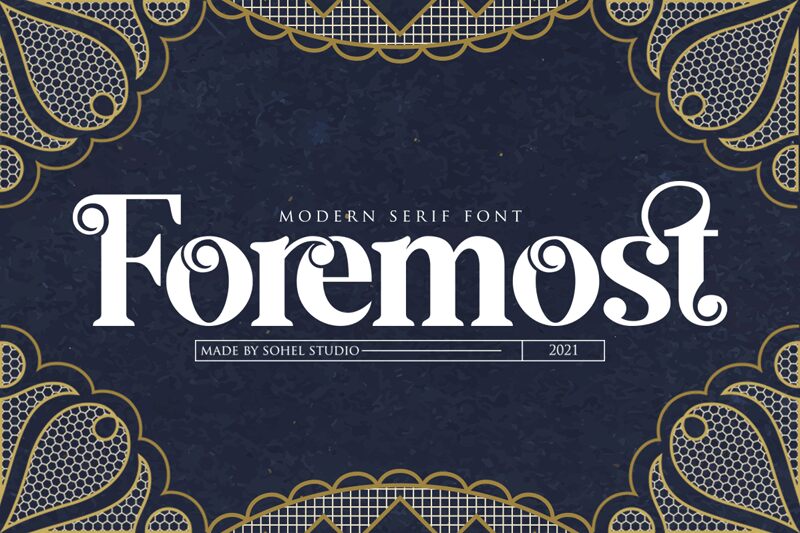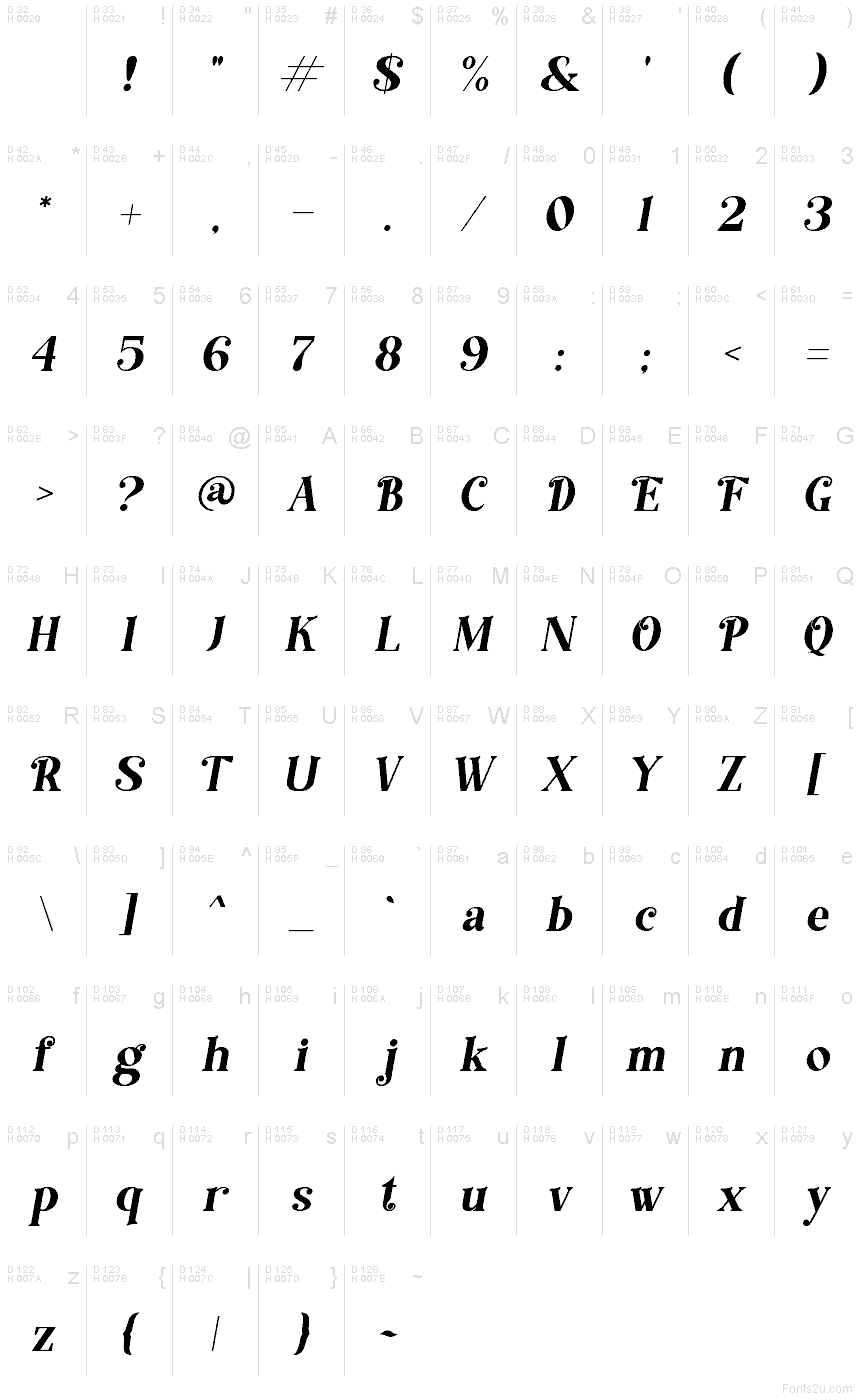
Foremost-Italic
Foremost Italic font by Sohel Studio is a free Christmas serif typeface that instantly feels like a vintage holiday card pulled from a keepsake box. Its bold, inky strokes and sweeping italic slant give every word a sense of movement, like ribbon curling across a gift. The Foremost family’s elegant curves and lively rhythm create a warm, nostalgic mood without slipping into something overly cute or childish.
Using Foremost Italic, your Christmas branding, greeting cards, festive posters, product packaging, event invitations, and seasonal social graphics gain a rich, storybook charm. The letters stay readable even at smaller sizes, but this free font really shines when you give it room in headlines or short phrases. Pair it with a clean sans serif for body text to balance its lush, decorative energy and keep your layouts feeling polished and modern.